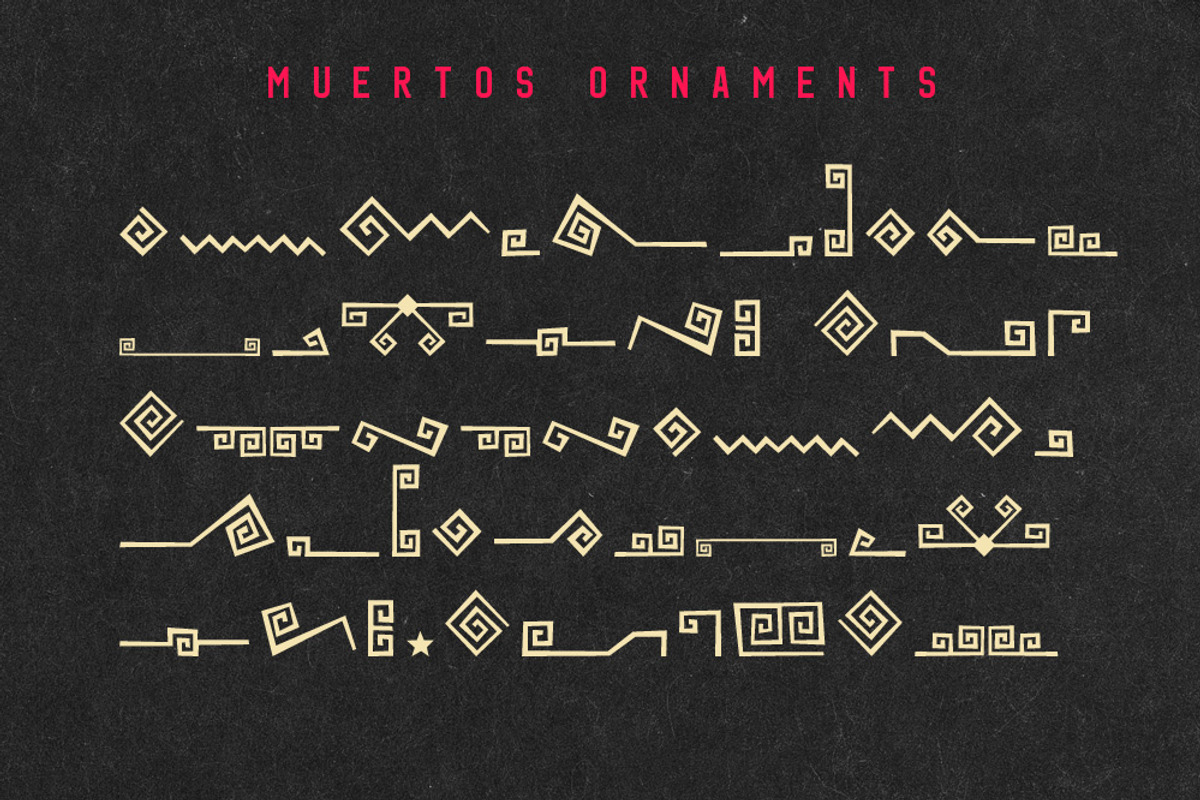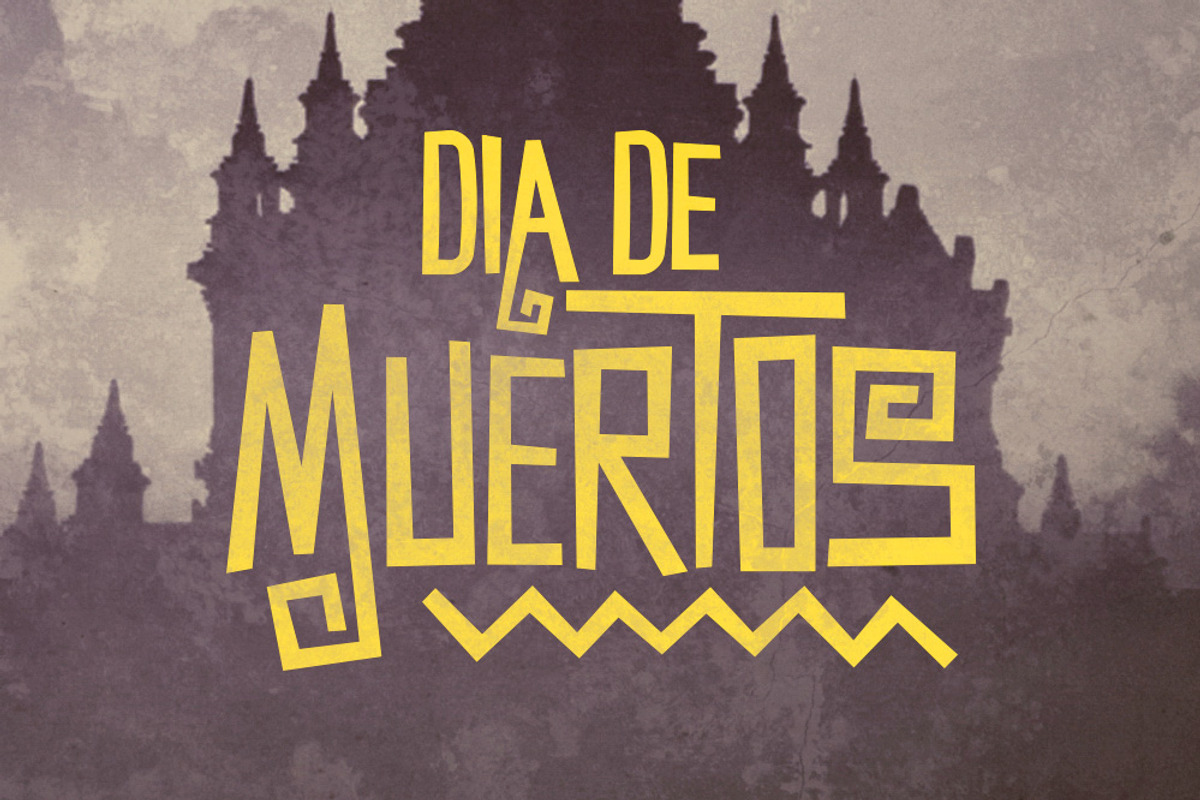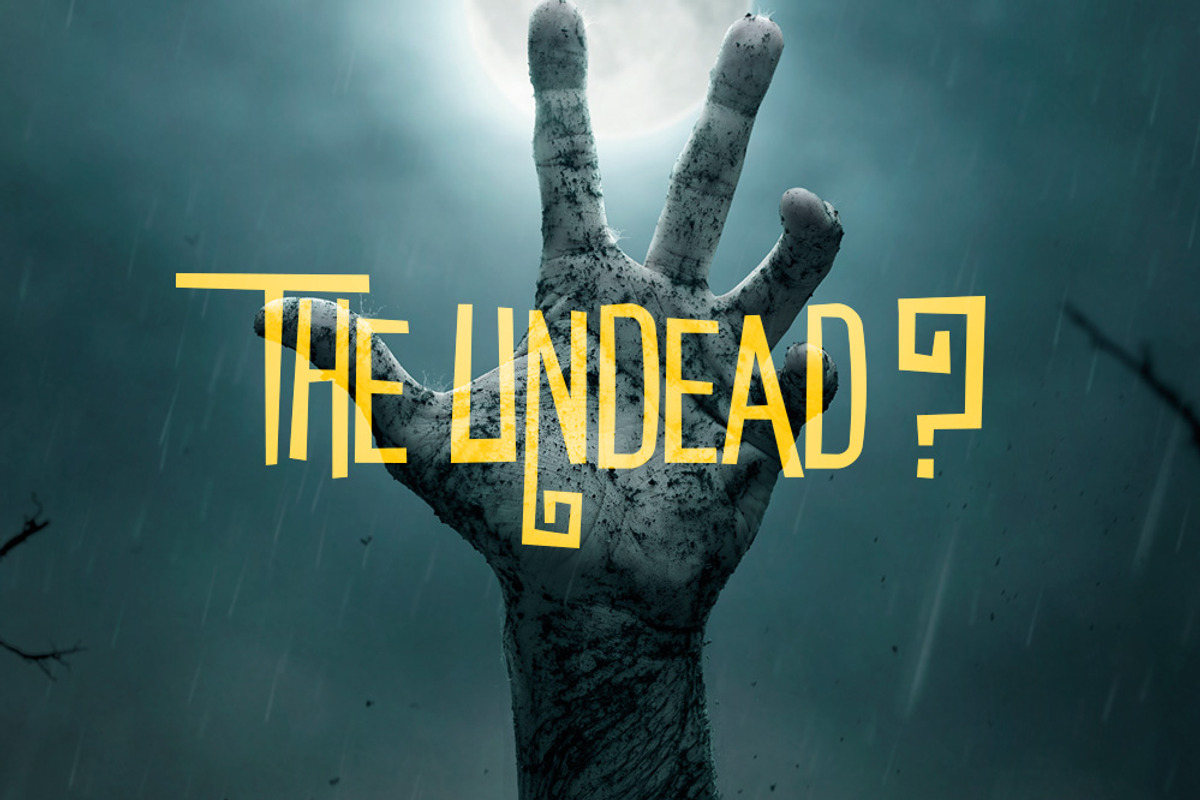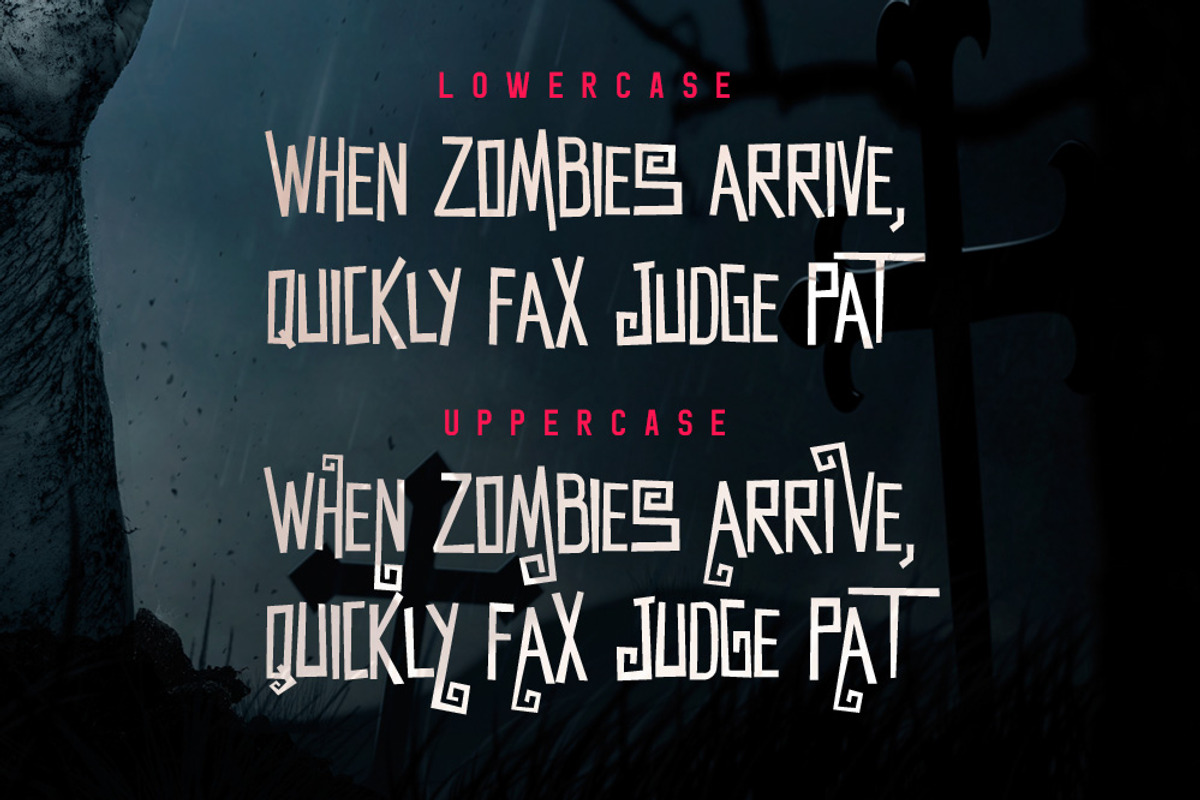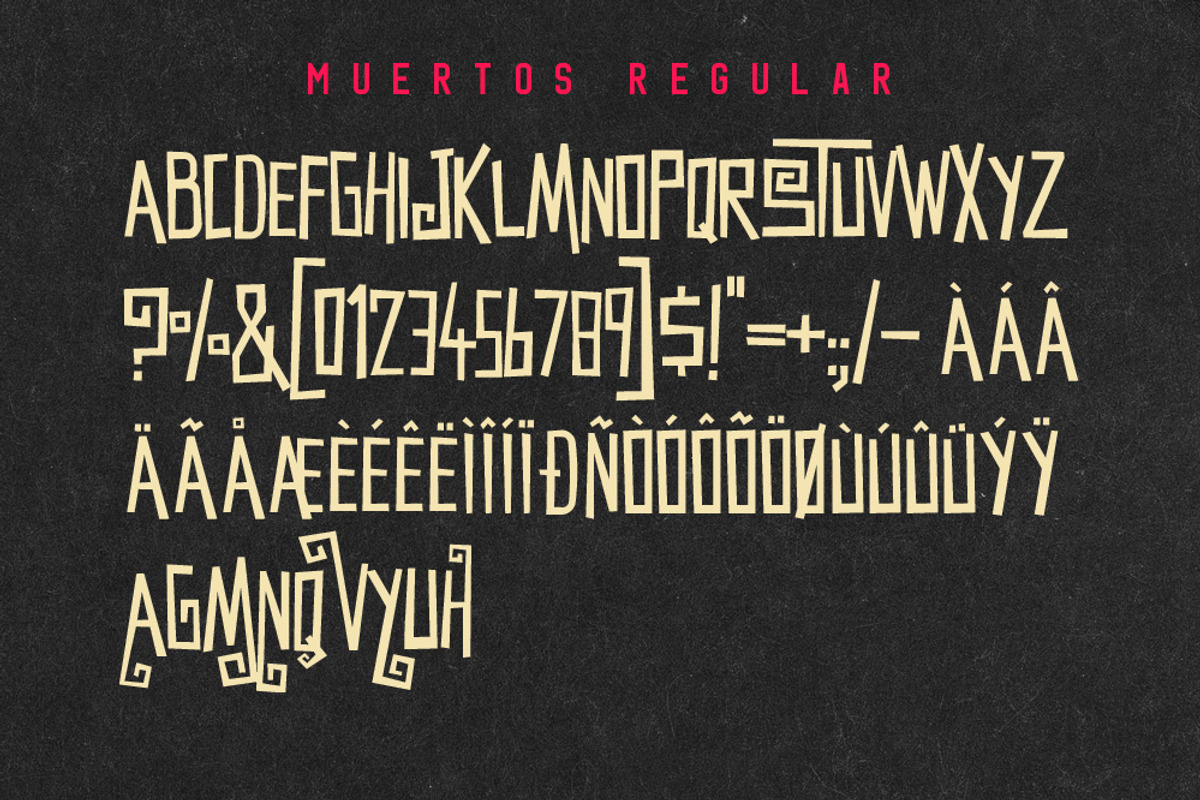
Muertos Typeface
Muertos Typeface by Tugcu Design Co. is a font selected for branding, posters, packaging, typography.
- Muertos is a strange typeface with multilingual uppercase letters, alternate letters, numbers, punctuation and ornaments.
Why Muertos Typeface is worth a look
Muertos Typeface by Tugcu Design Co. fits naturally into Branding, posters, packaging, typography.